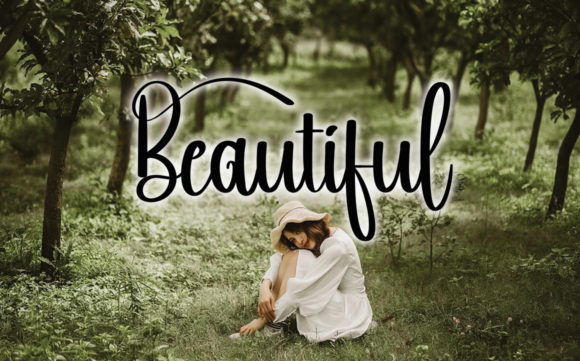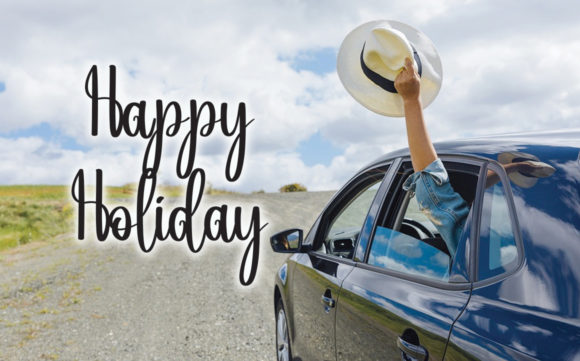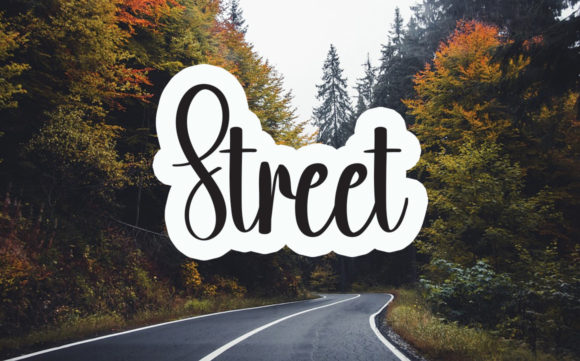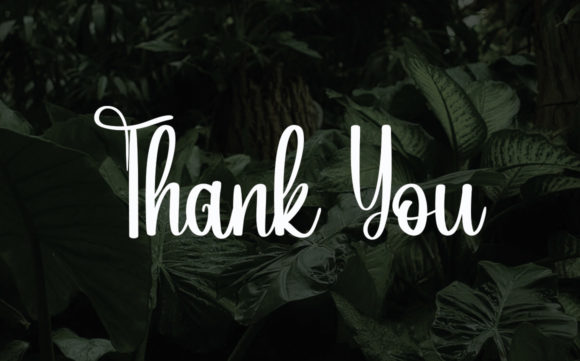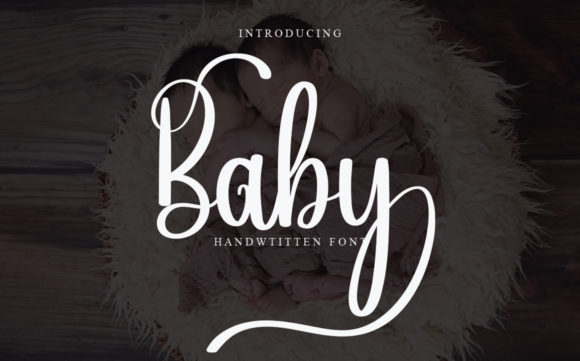
Baby Font: The Ultimate Handwritten Font for Creative Designs
Are you a designer or crafter looking for a beautiful and flowing handwritten font to elevate your creative projects? Look no further than Baby Font! This stunning font is perfect for a wide range of applications, from wall displays and wedding invitations to social media posts, logos, advertisements, product packaging, and product designs.
What is Baby Font?
Baby Font is a gorgeous handwritten font that exudes elegance and sophistication. Its flowing curves and delicate lines make it perfect for creating beautiful and eye-catching designs. Whether you’re looking to add a touch of whimsy or create a more formal look, Baby Font is the perfect choice.
Features of Baby Font
- Beautiful and flowing handwritten design: Baby Font features a stunning handwritten design that is both elegant and sophisticated.
- Perfect for a wide range of applications: From wall displays and wedding invitations to social media posts, logos, advertisements, product packaging, and product designs, Baby Font is versatile and can be used for a variety of creative projects.
- Easy to read and understand: Despite its elegant design, Baby Font is easy to read and understand, making it perfect for body text and headings.
Uses of Baby Font
Baby Font is a versatile font that can be used for a wide range of creative projects, including:
- Wall displays: Create stunning wall displays with Baby Font, perfect for weddings, birthdays, and other special occasions.
- Wedding invitations: Add a touch of elegance to your wedding invitations with Baby Font, perfect for formal and informal weddings.
- Social media posts: Use Baby Font to create eye-catching social media posts that will grab the attention of your followers.
- Logos: Create beautiful and memorable logos with Baby Font, perfect for businesses and brands.
- Advertisements: Use Baby Font to create stunning advertisements that will grab the attention of your target audience.
- Product packaging: Add a touch of elegance to your product packaging with Baby Font, perfect for luxury brands and products.
- Product designs: Use Baby Font to create beautiful and eye-catching product designs, perfect for a range of products, from clothing to home decor.
Tips for Using Baby Font
Here are some tips for using Baby Font in your creative projects:
- Use it sparingly: Baby Font is a beautiful font, but it can be overwhelming if used too much. Use it sparingly to create a focal point in your design.
- Pair it with other fonts: Baby Font pairs well with other fonts, such as sans-serif fonts and script fonts. Experiment with different font combinations to find the perfect look for your design.
- Experiment with different colors: Baby Font looks beautiful in a range of colors, from soft pastels to bold and bright colors. Experiment with different colors to find the perfect look for your design.